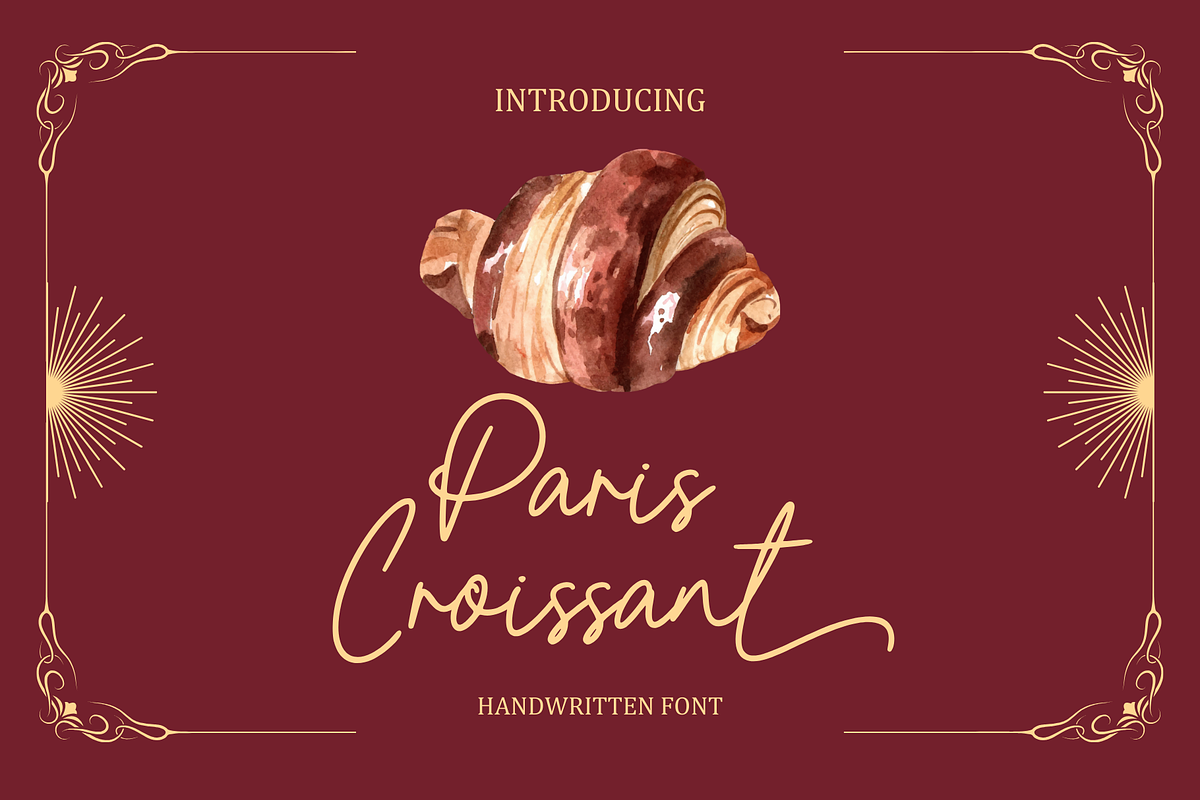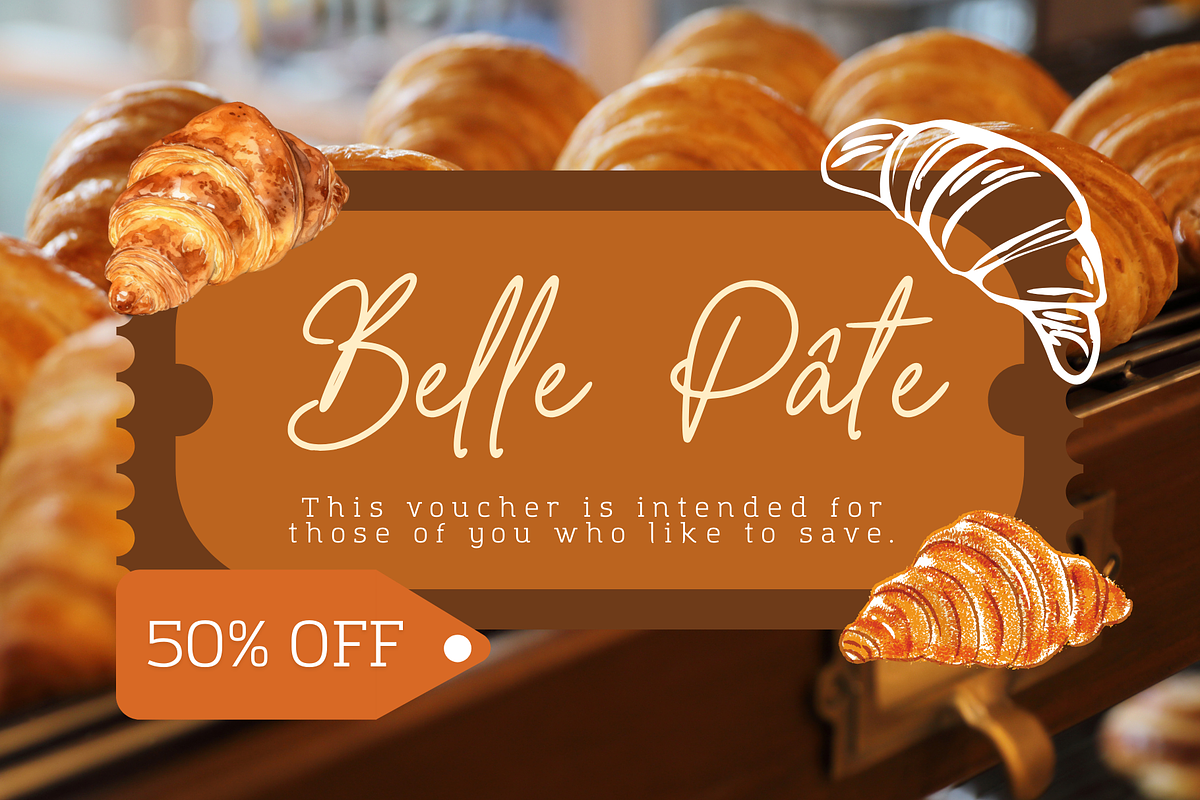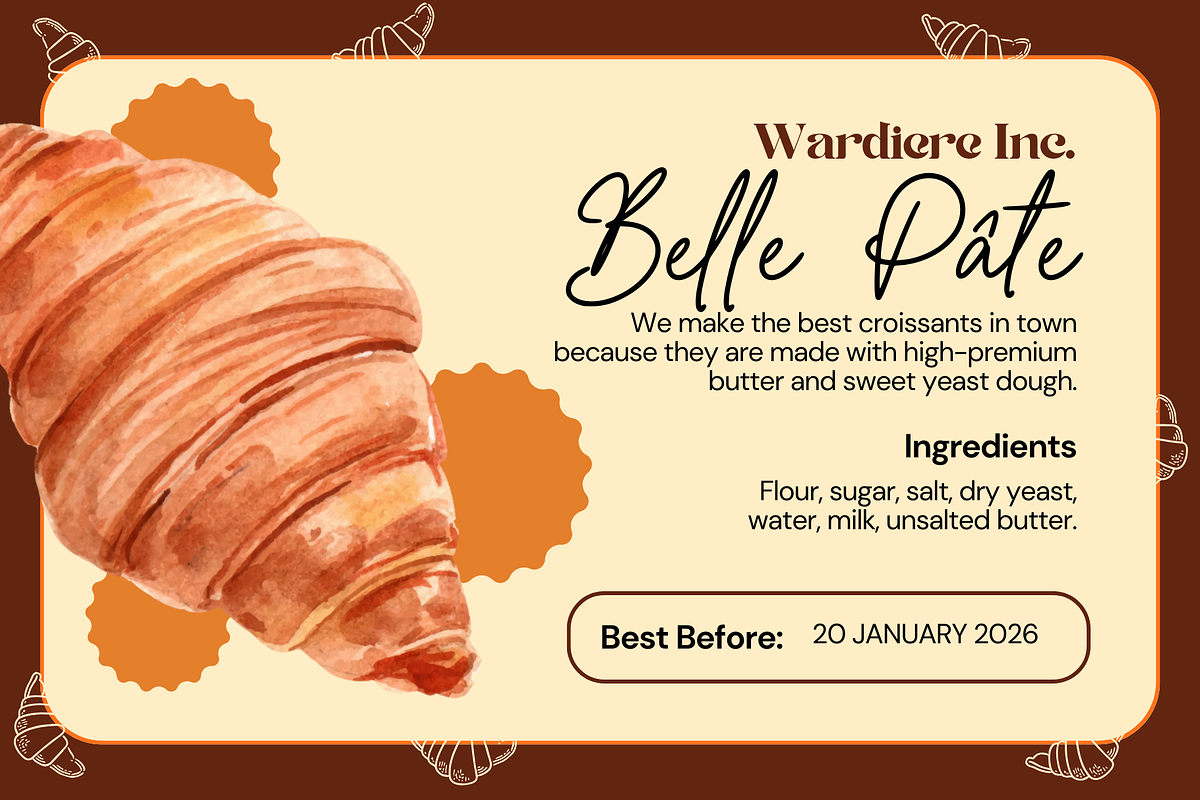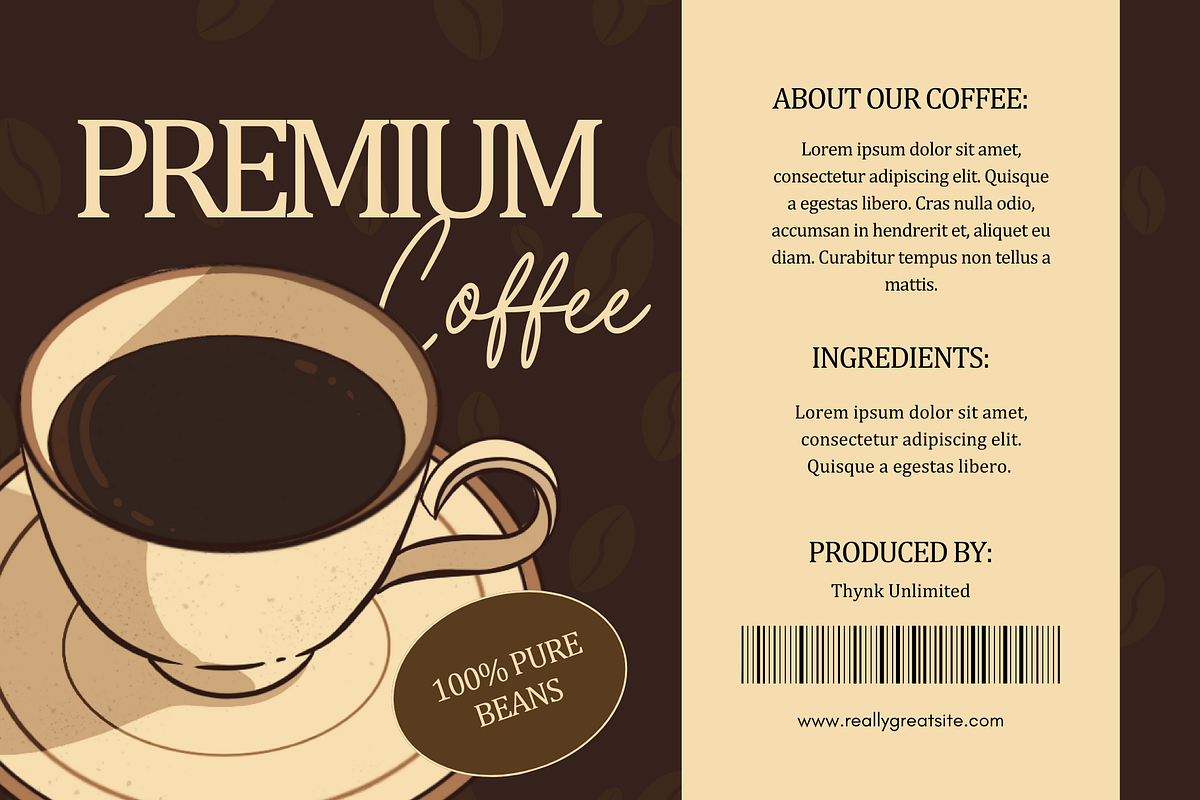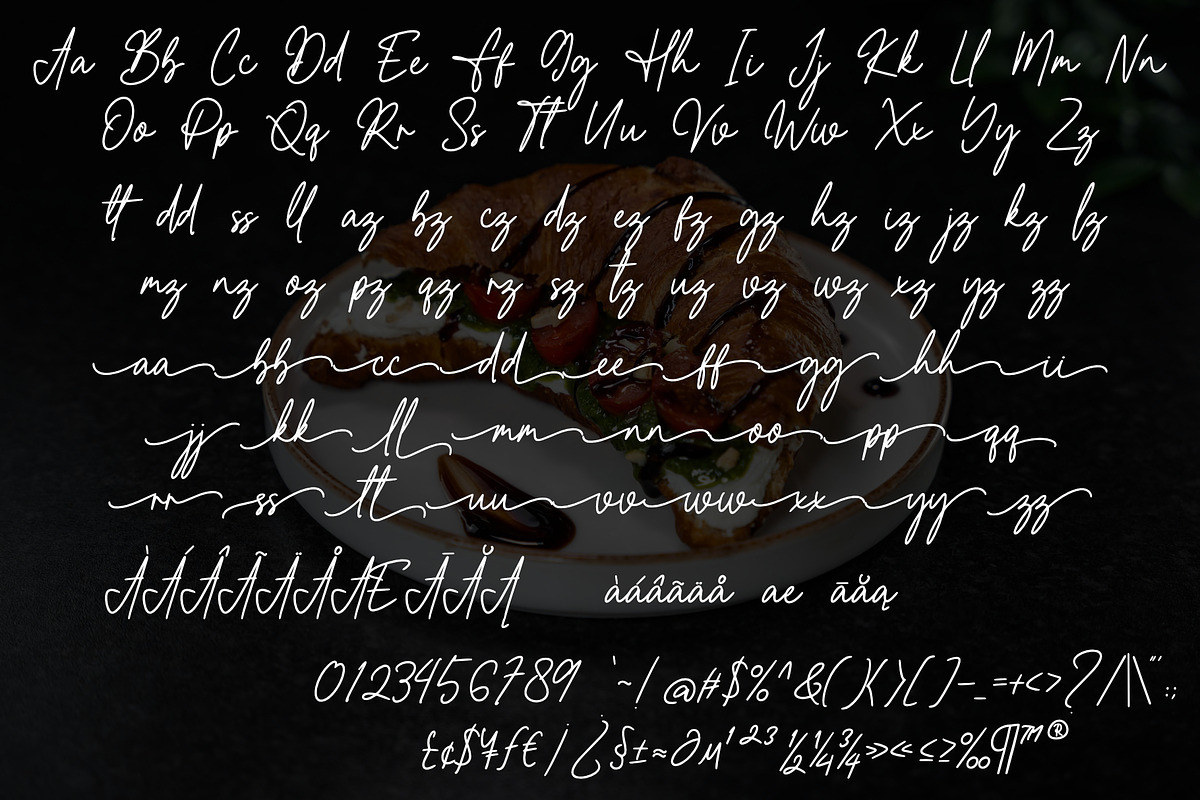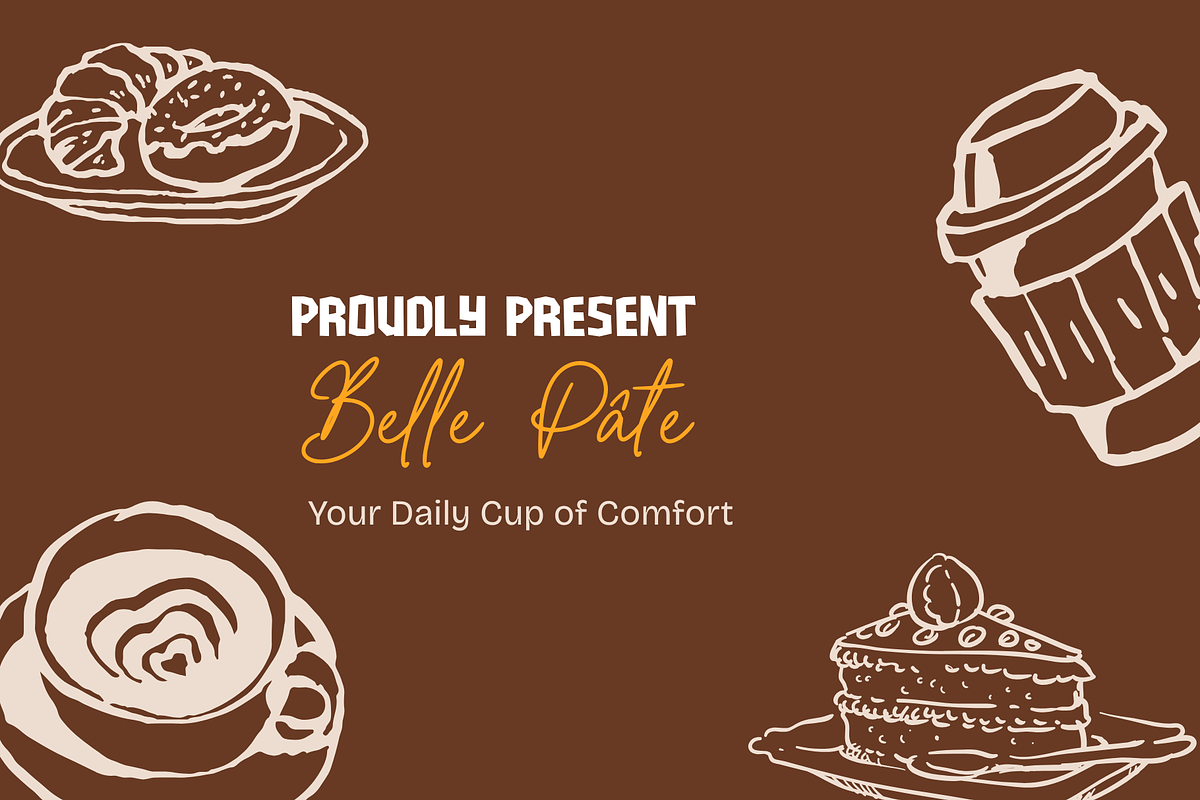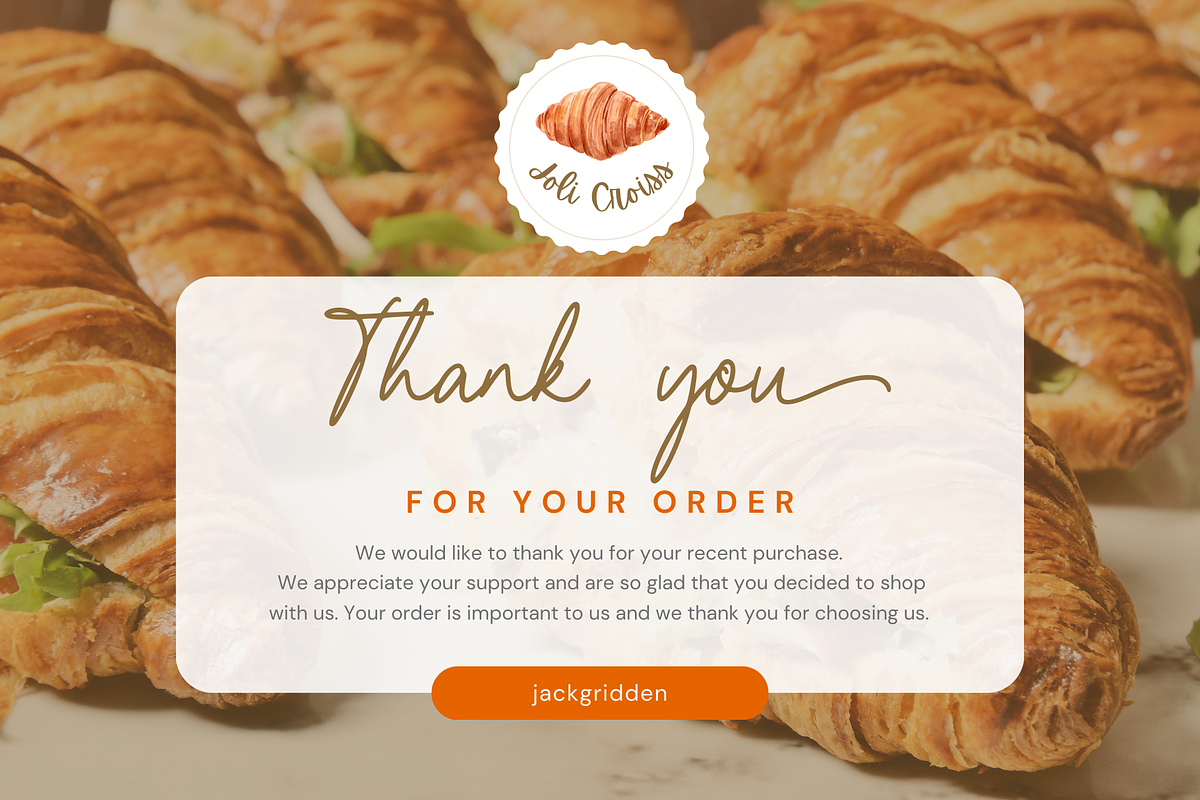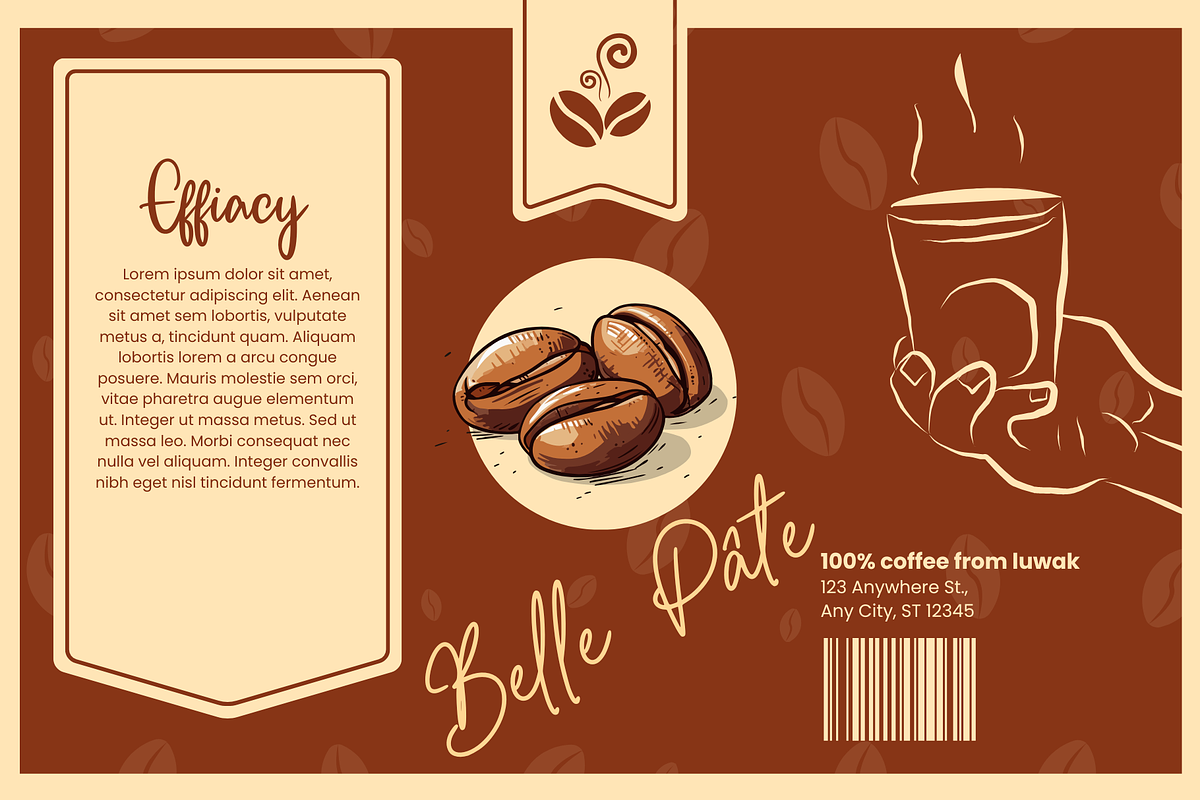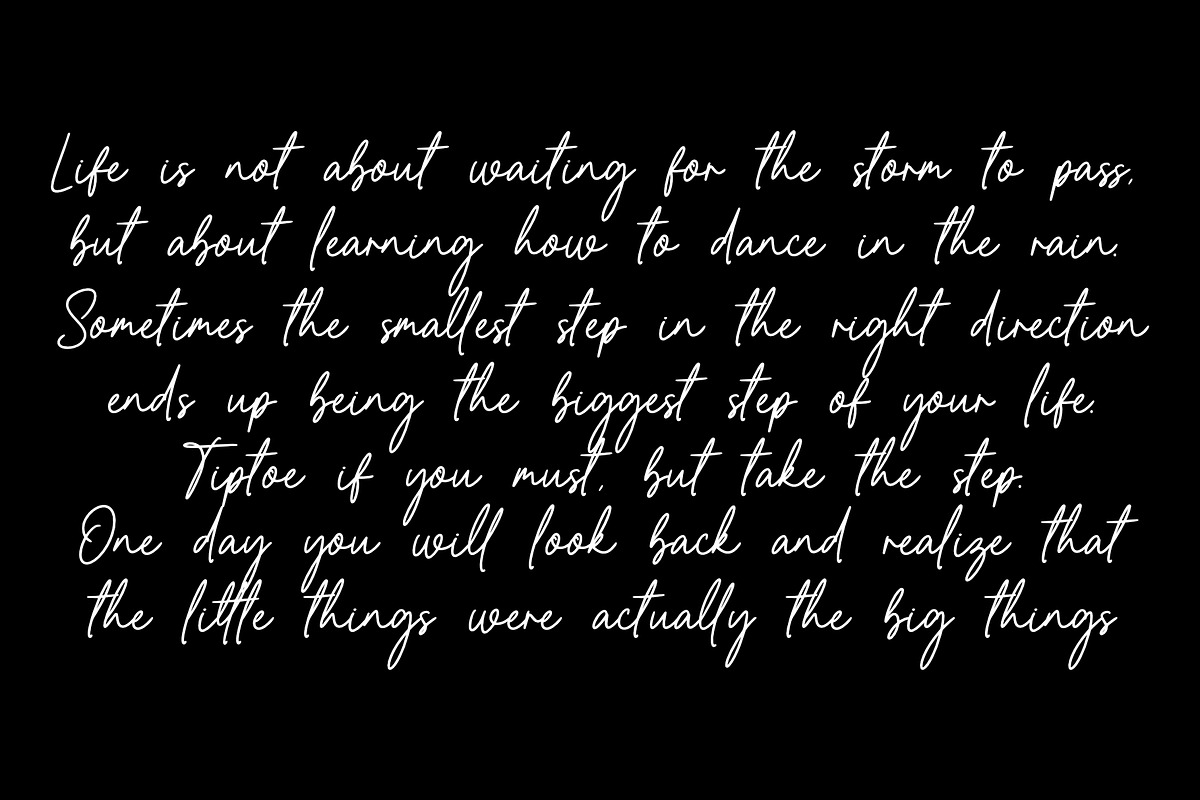
Paris Croissant
Paris Croissnt is a elegant and sophisticated script font that captures the essence of French chic. With its delicate curves and flourishes, this premium font exudes luxury and charm. Perfect for branding, wedding invitations, and any design project that requires a touch of glamour.